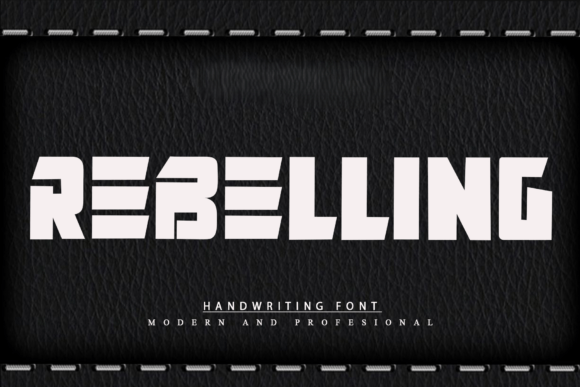
Introducing Rebeling Font: The Perfect Blend of Casualness and Sophistication
In the world of typography, fonts play a crucial role in conveying the tone and personality of a brand or design. With the numerous font options available, it can be challenging to find the perfect one that balances style, readability, and charm. However, if you’re looking for a font that embodies warmth, clarity, and approachability, look no further than Rebeling Font. In this article, we’ll explore the features and benefits of Rebeling Font, and why it’s an excellent choice for your branding, headlines, and everyday designs.
What is Rebeling Font?
Rebeling Font is a casual and neat display font designed to bring a touch of warmth and clarity to your projects. Its clean structure and approachable style make it an excellent choice for a wide range of applications, from branding and headlines to everyday designs. The font’s balanced letterforms offer exceptional readability and charm, making every message feel genuine and inviting.
Key Features of Rebeling Font
- Clean Structure: Rebeling Font boasts a clean and well-structured design, making it easy to read and understand.
- Approachable Style: The font’s approachable style makes it perfect for designs that require a friendly and inviting tone.
- Balanced Letterforms: The font’s balanced letterforms provide exceptional readability and charm, making it ideal for a wide range of applications.
- Warmth and Clarity: Rebeling Font is designed to bring warmth and clarity to your projects, making it perfect for designs that require a personal touch.
Benefits of Using Rebeling Font
Rebeling Font offers numerous benefits that make it an excellent choice for your designs. Some of the key benefits include:
- Improved Readability: The font’s clean structure and balanced letterforms make it easy to read and understand, even at small sizes.
- Enhanced Charm: Rebeling Font’s approachable style and warmth make it perfect for designs that require a personal touch.
- Versatility: The font is suitable for a wide range of applications, from branding and headlines to everyday designs.
- Time-Saving: With Rebeling Font, you can create professional-looking designs quickly and efficiently, saving you time and effort.
Who Can Benefit from Rebeling Font?
Rebeling Font is an excellent choice for a wide range of designers, developers, and businesses. Some of the professionals who can benefit from this font include:
- Graphic Designers: Rebeling Font is perfect for graphic designers who need a font that can add a touch of warmth and clarity to their designs.
- Web Developers: The font’s clean structure and readability make it an excellent choice for web developers who need to create user-friendly and accessible websites.
- Marketers: Rebeling Font is ideal for marketers who need to create engaging and effective marketing materials that resonate with their target audience.
- Small Business Owners: The font’s versatility and affordability make it an excellent choice for small business owners who need to create professional-looking designs without breaking the bank.
How to Use Rebeling Font Effectively
To get the most out of Rebeling Font, here are some tips on how to use it effectively:
- Pair it with Other Fonts: Rebeling Font can be paired with other fonts to create a unique and visually appealing design.
- Use it for Headlines: The font’s bold and attention-grabbing style makes it perfect for headlines and titles.
- Experiment with Colors: Rebeling Font can be used with a wide range of colors to create a design that matches your brand’s personality.
- Keep it Simple: The font’s clean structure and readability make it perfect for designs that require a simple and straightforward approach.
In conclusion, Rebeling Font is a casual and neat display font that offers a perfect blend of style, readability, and charm. Its clean structure, approachable style, and balanced letterforms make it an excellent choice for a wide range of applications, from branding and headlines to everyday designs. With its numerous benefits and versatility, Rebeling Font is an excellent addition to any designer’s toolkit.
- What is Rebeling Font? Rebeling Font is a casual and neat display font designed to bring warmth and clarity to your projects.
- What are the key features of Rebeling Font? The font’s key features include a clean structure, approachable style, balanced letterforms, and warmth.
- Who can benefit from Rebeling Font? Rebeling Font is an excellent choice for graphic designers, web developers, marketers, and small business owners.
- How can I use Rebeling Font effectively? You can use Rebeling Font effectively by pairing it with other fonts, using it for headlines, experimenting with colors, and keeping it simple.